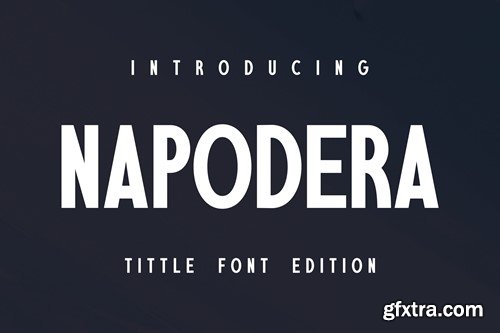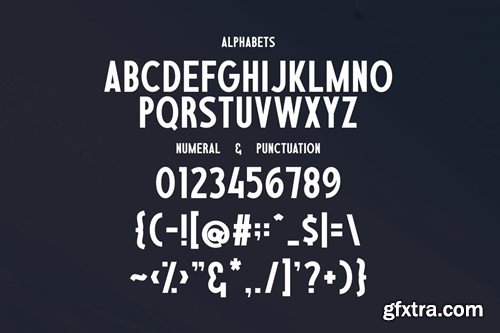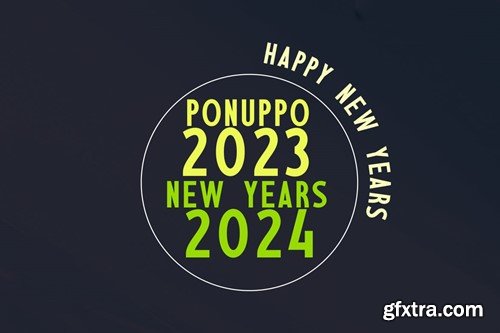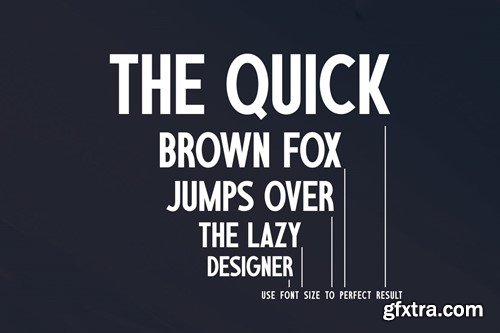
Napodera Font
A light and simple sans serif font. a little thicker than usual, allows it to be used in a variety of sizes. Happy New Year 2024. Happy Holidays. Thank You. Last font before the Holidays.